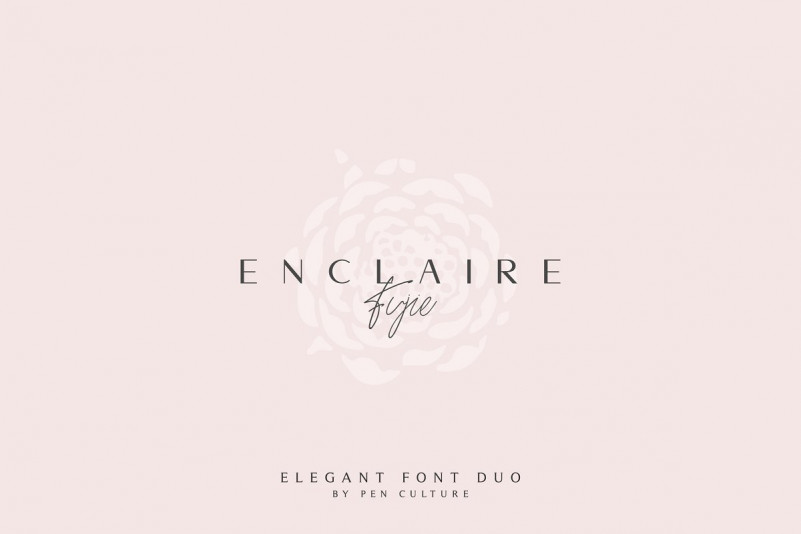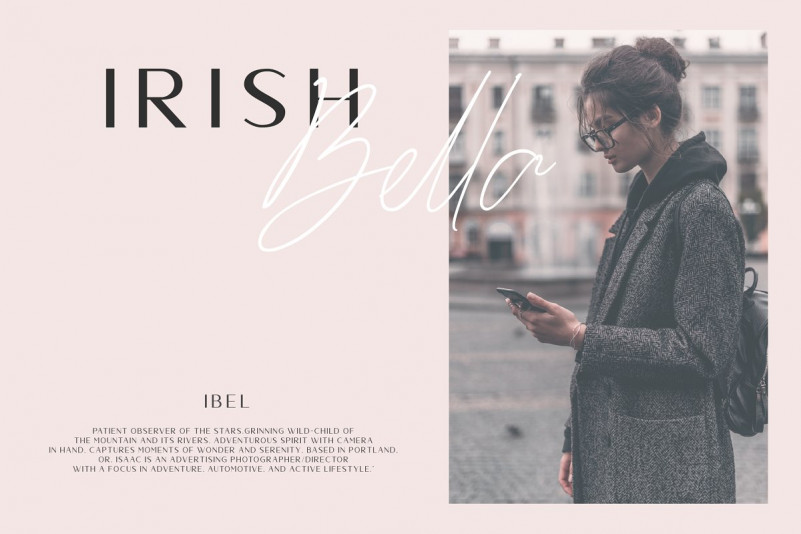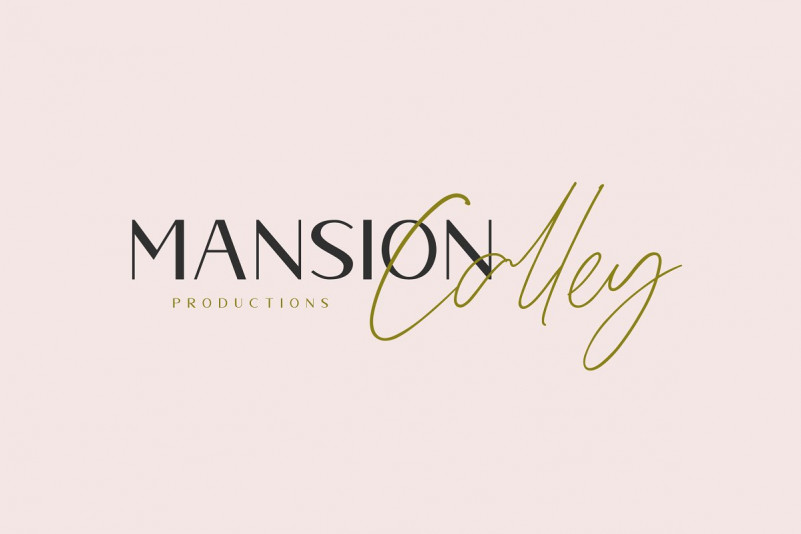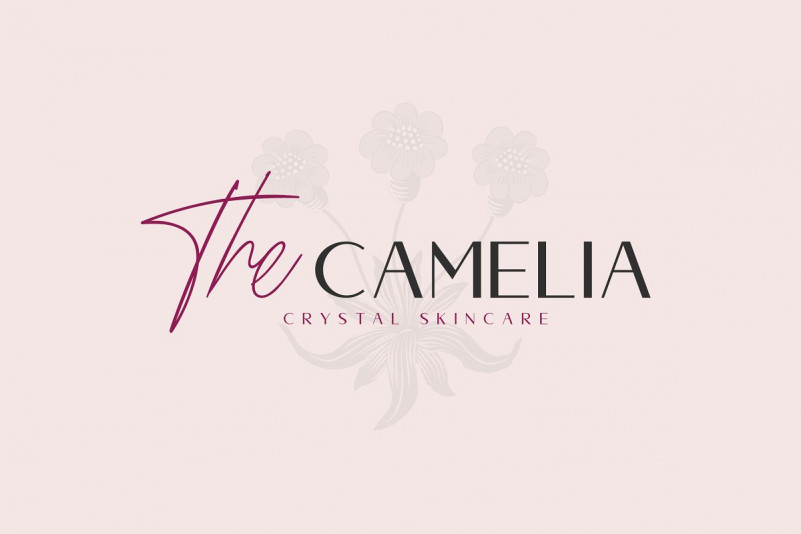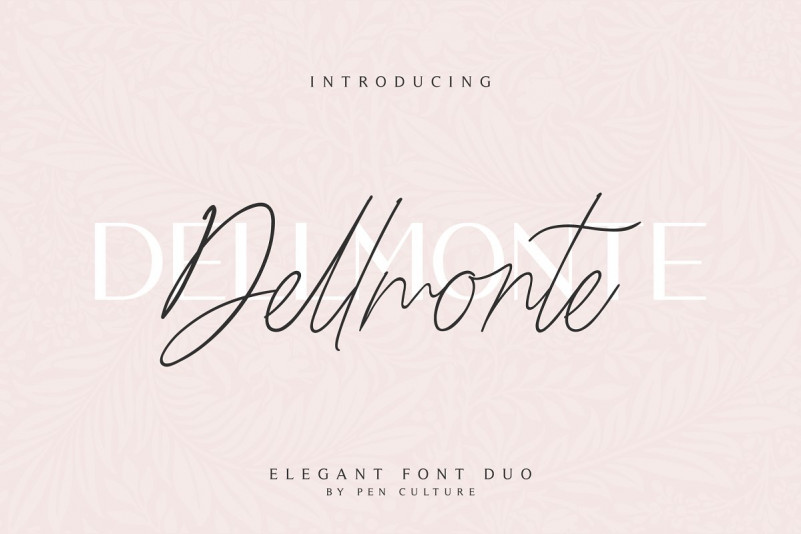
Dellmonte Sans Font
Hello buddy! This is a elegant font duo. With impeccably refined curves and silky smooth edges, It’s perfect for adding a classy, modern touch to your projects! Introducing Dellmonte Font! Dellmonte comes in 2 font variants, Dellmonte sans and Dellmonte script, Specific OpenType features include all caps, multilingual support (including currency symbols), 94 ligatures, standard numbers, and many others. this font perfect for any purpose, and very easy to use.